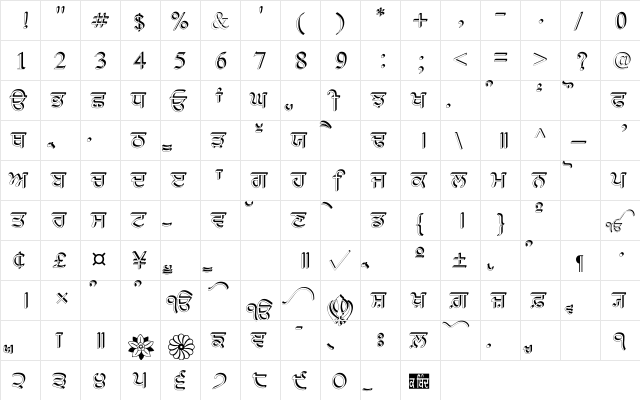
SamtolRaised Regular
Design Context for SamtolRaised Typeface
SamtolRaised is a composed and adaptable typeface that performs quietly and consistently across a wide range of design contexts.